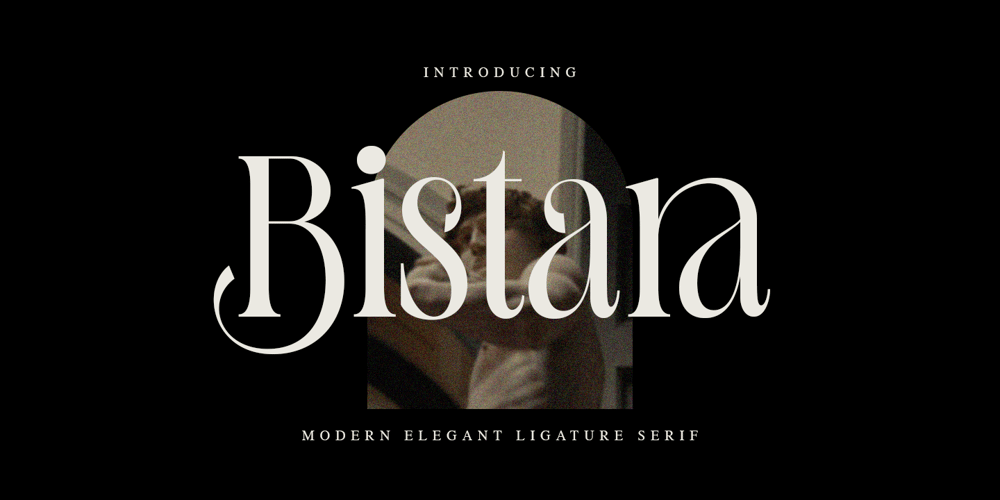
Bistara Font Family was designed by Amrullah Medan, Amrullah and published by Ably Creative. Bistara contains 1 styles and family package options. Bistara font is a minimalist serif font that exudes elegance through simplicity and precision. With consistent letterforms and several alternate characters that provide design flexibility, Bistara font provides a clean yet elegant modern touch. Bistara font is perfect for company logos that want to project professionalism with a subtle touch, as well as brochures that require a neat and structured look. With a timeless design, Bistara font brings an elegant and minimalist impression to every project. Not only for corporate purposes, Bistara font is also very suitable for wedding invitation designs, branded clothing, and exclusive events, where minimalist aesthetics and a luxurious impression are a priority. This font is able to highlight the beauty of details without being excessive, making it the right choice for various design needs that want a clean, elegant, and versatile impression. Bistara font is the ideal solution for designers who are looking for a balance between a modern look and classic elegance in every creation.